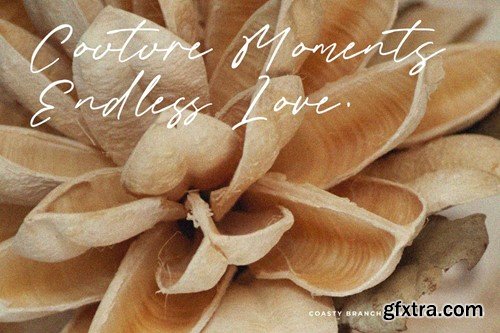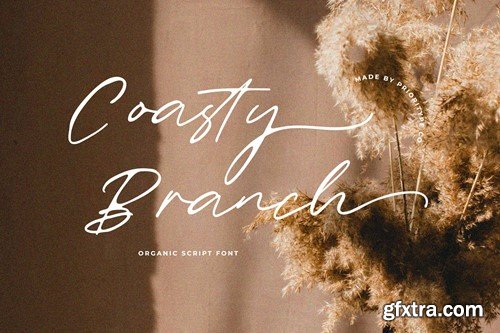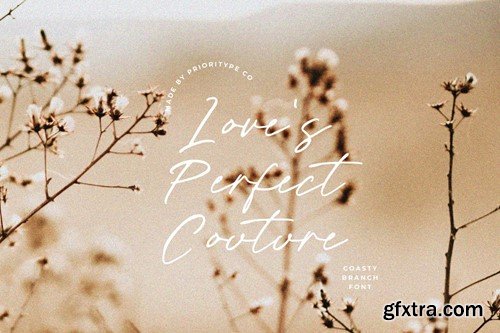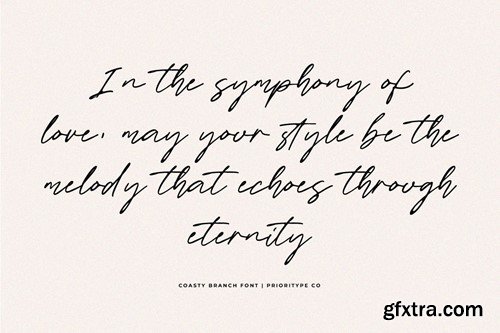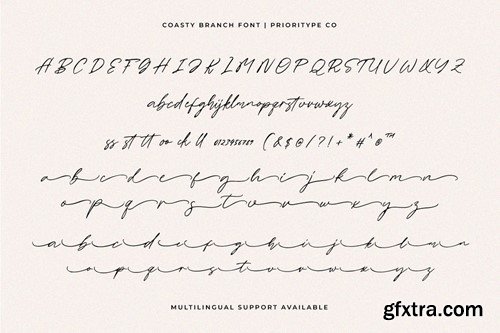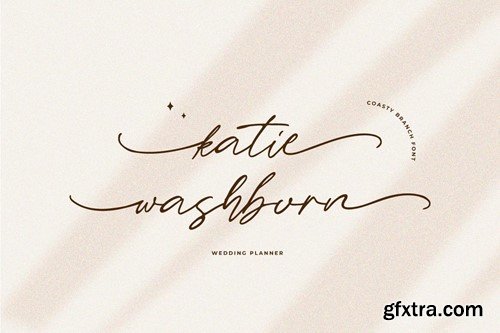
Coasty Branch - Organic Script Font E2EKPC6
Coasty Branch - Organic Script Font
Introducing "Coasty Branch," our Organic Script Font. A luxurious blend of elegance and versatility. Perfect for invitations, logos, and quotes, its fluid strokes and organic feel exude natural charm and sophistication. Elevate your designs with the warmth and authenticity of "Coasty Branch," crafted for timeless elegance with a modern edge.
• Features: Uppercase, Lowercase, Numeral, Punctuation, Multilingual, Alternates & Ligatures.